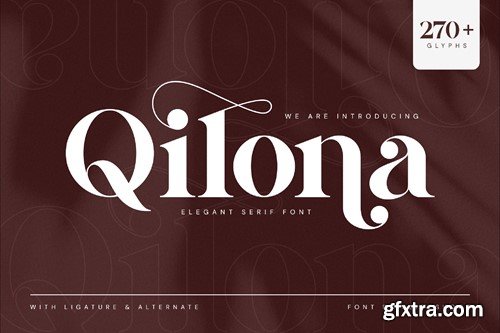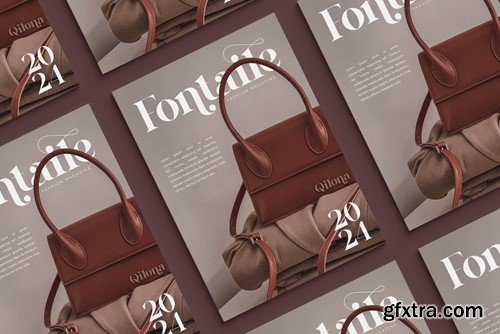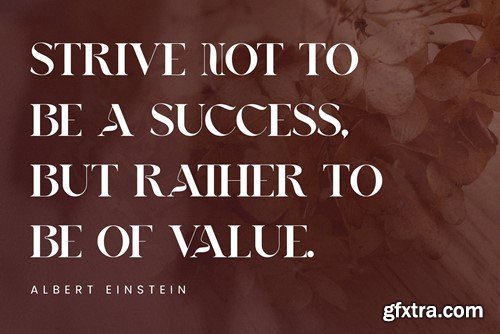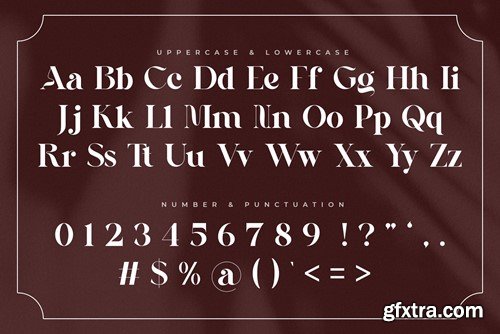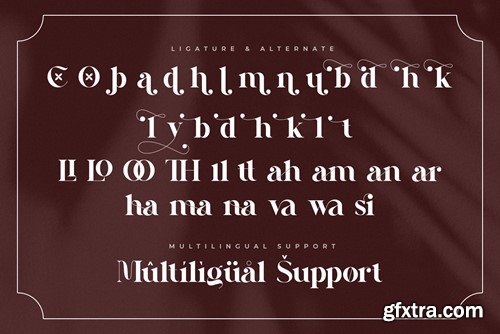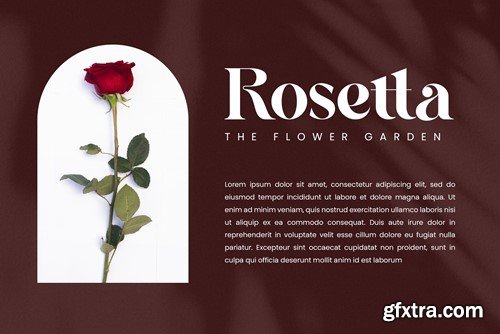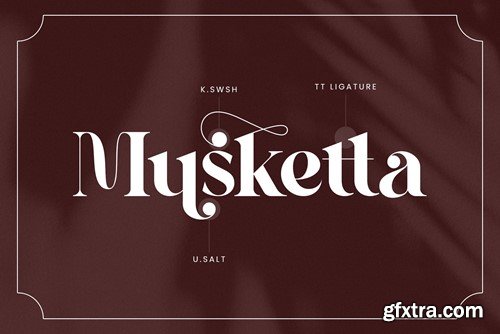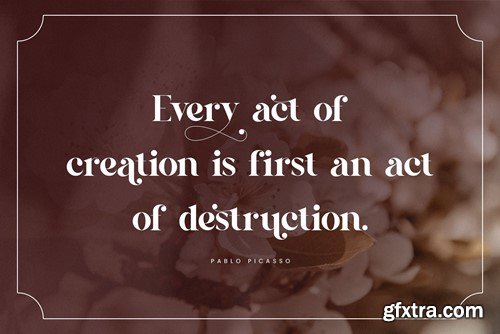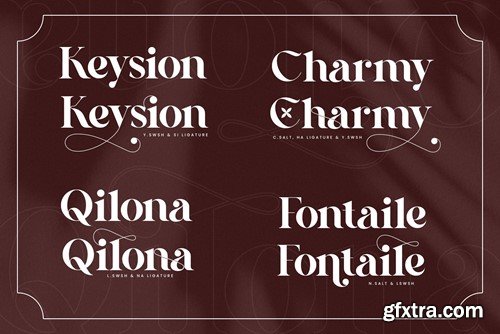
Qilona Elegant Serif Font T23R9E8
Qilona Elegant Serif Font
Qilona Serif is a balanced, smooth, elegant and stylish serif font. He has a beautiful character. It fits perfectly with invitation card designs, company logos, movie titles, movie names, business cards, book titles, brand names and various other designs. Qilona Serif is a subtle serif font that exudes sophistication and elegance. Its stylish alternations and ligatures make this font the perfect partner for any project.
• Ligature
• Uppercase and lowercase
• Numbering and Punctuation